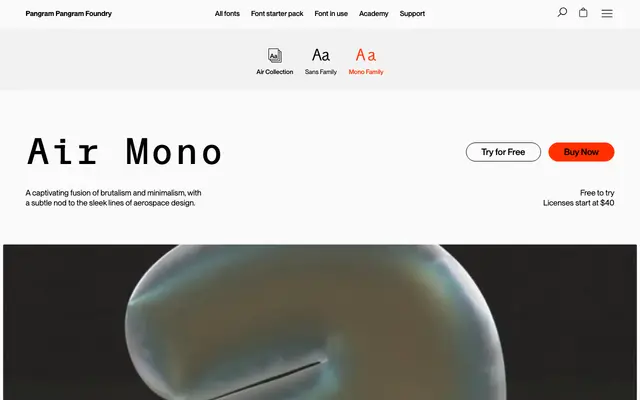
Air Mono
Pangram Foundry · Mat Desjardins, Caio Kondo
The fixed-width cut of Air by Mat Desjardins and Caio Kondo, with Mono, Workhorse and Relaxed stylistic sets.
The monospaced cut of Air by Mat Desjardins and Caio Kondo of Inari Type. Eighteen styles run from Thin to Black with italics, with stylistic sets labelled Mono, Workhorse and Relaxed for different code and editorial uses. Discretionary ligatures cover fi, si, sr, st, Th, plus alternate symbols, standard ligatures and case-sensitive forms.